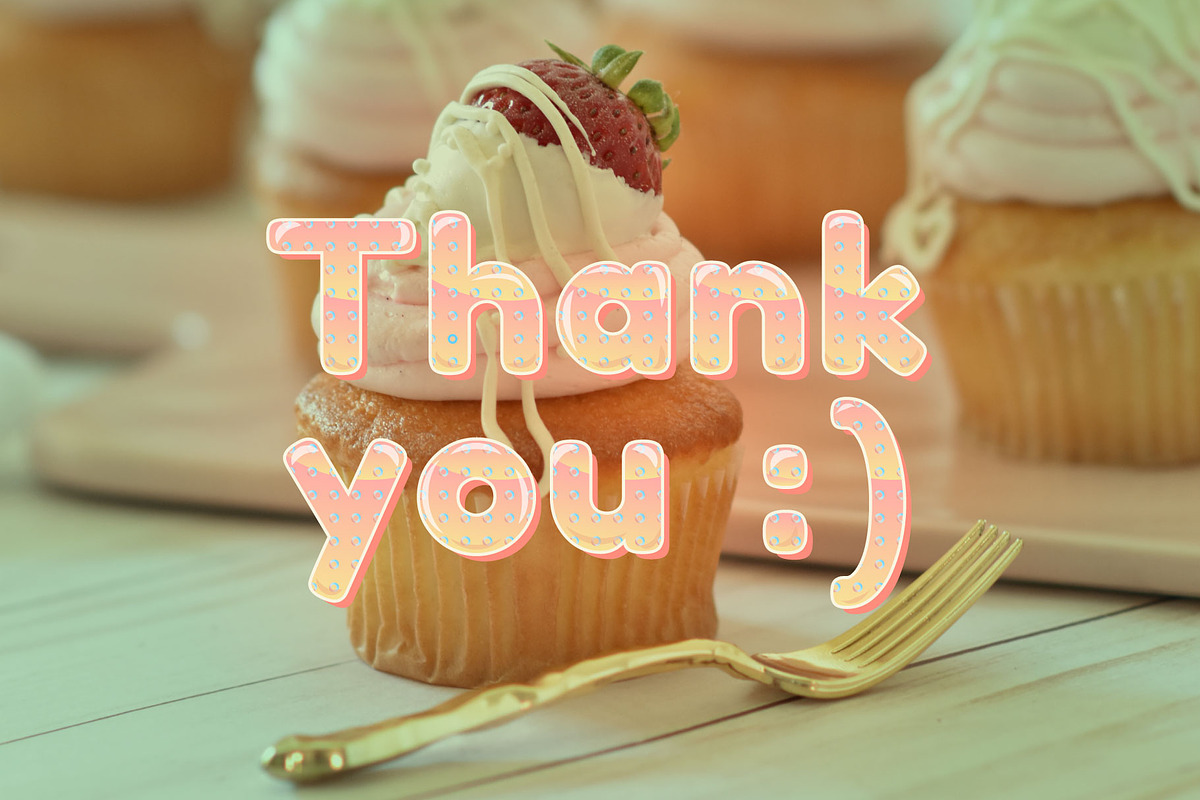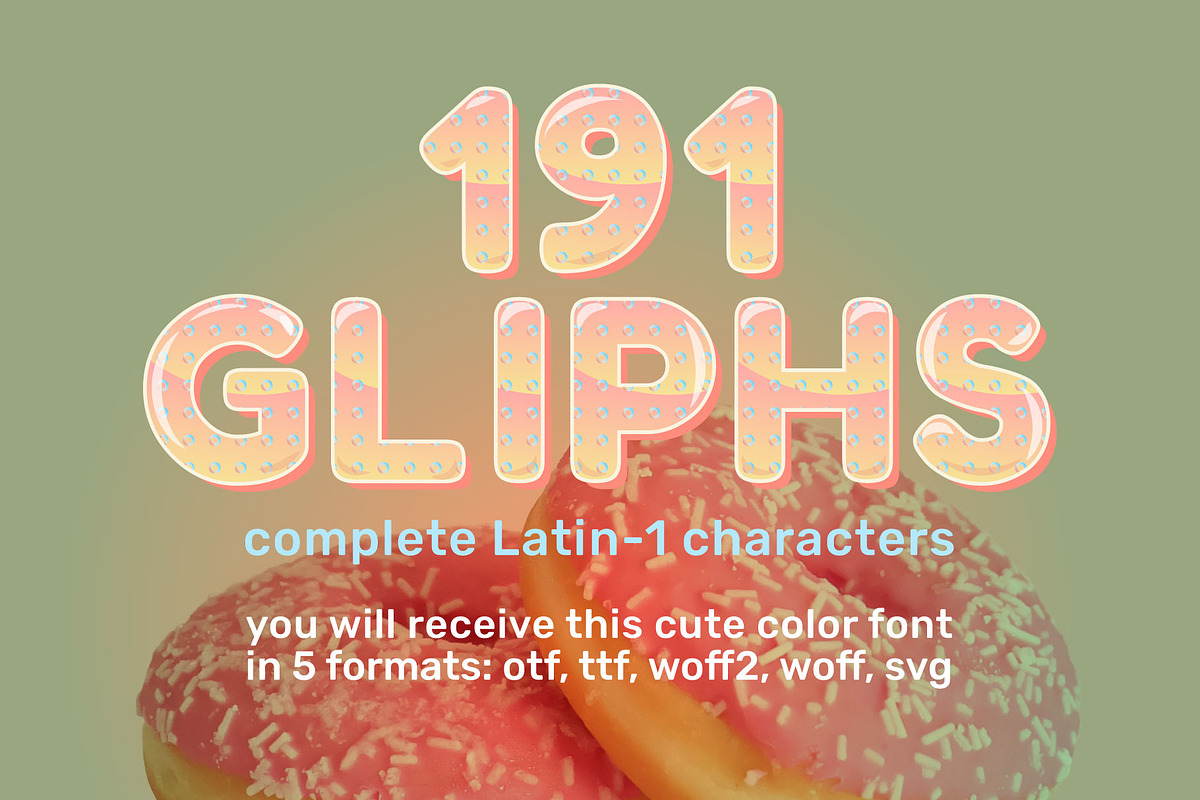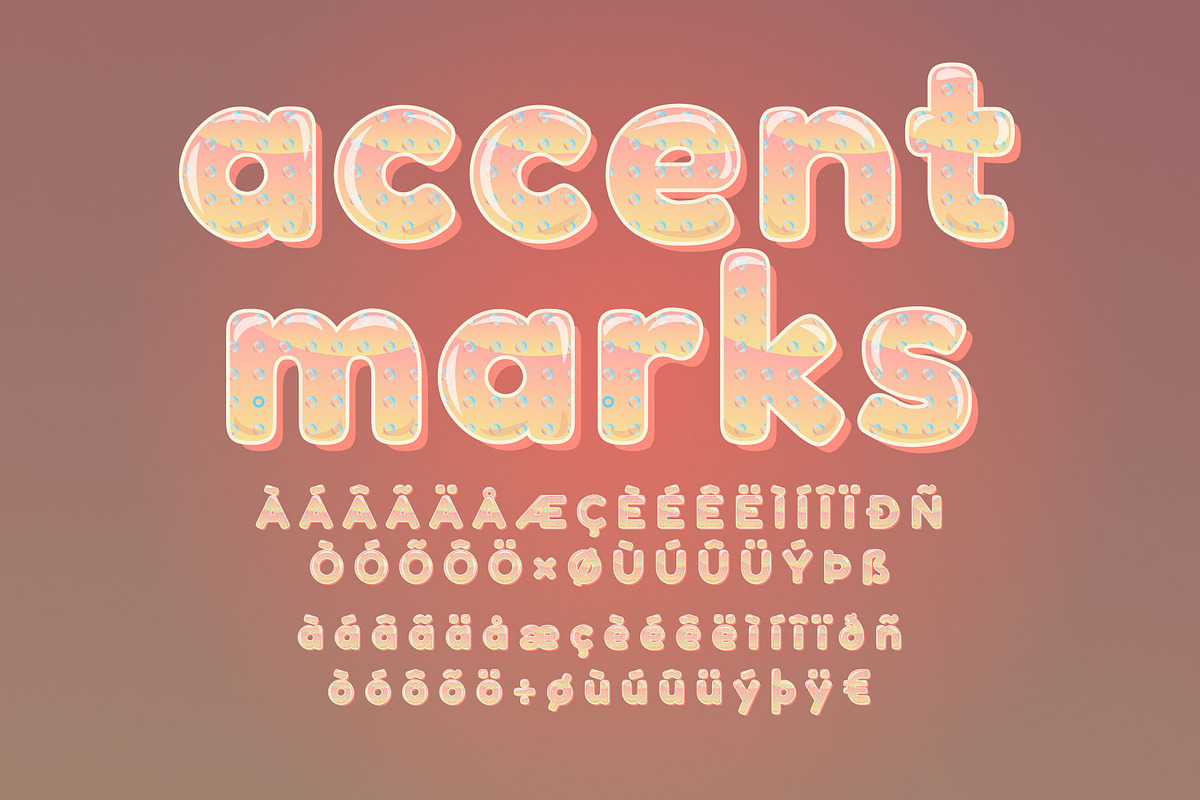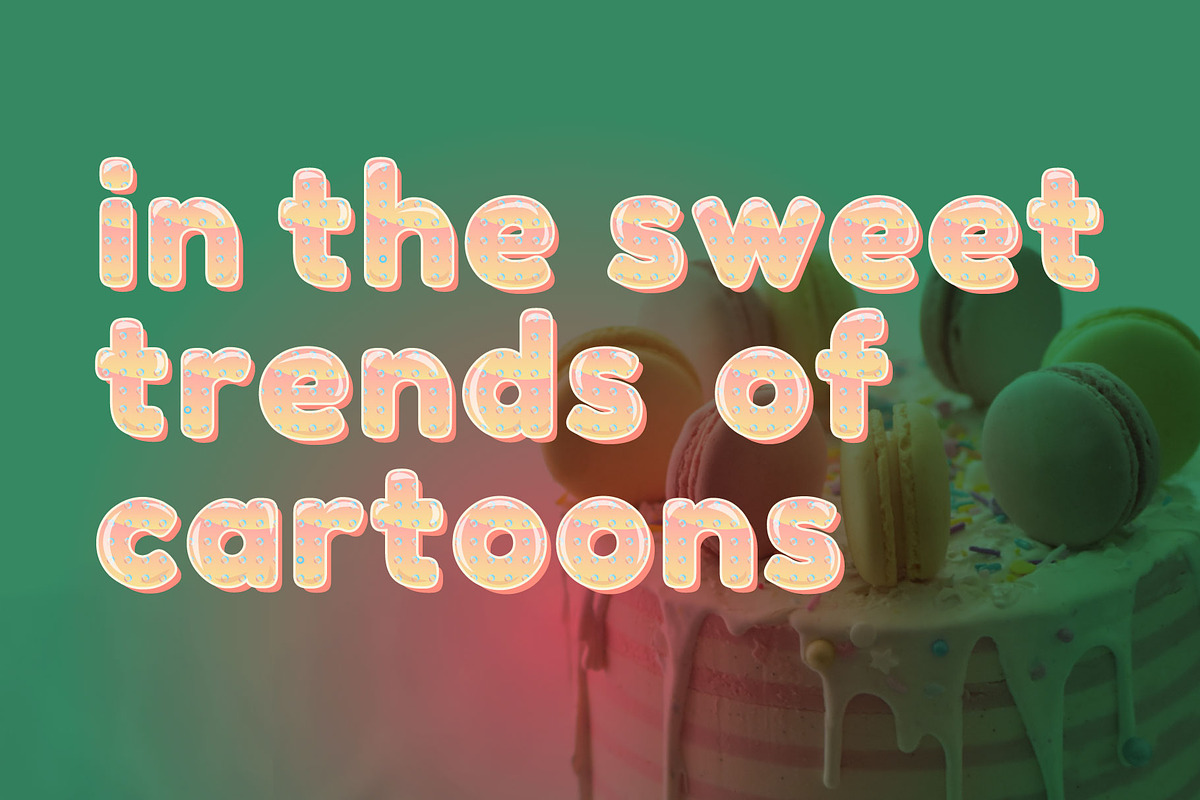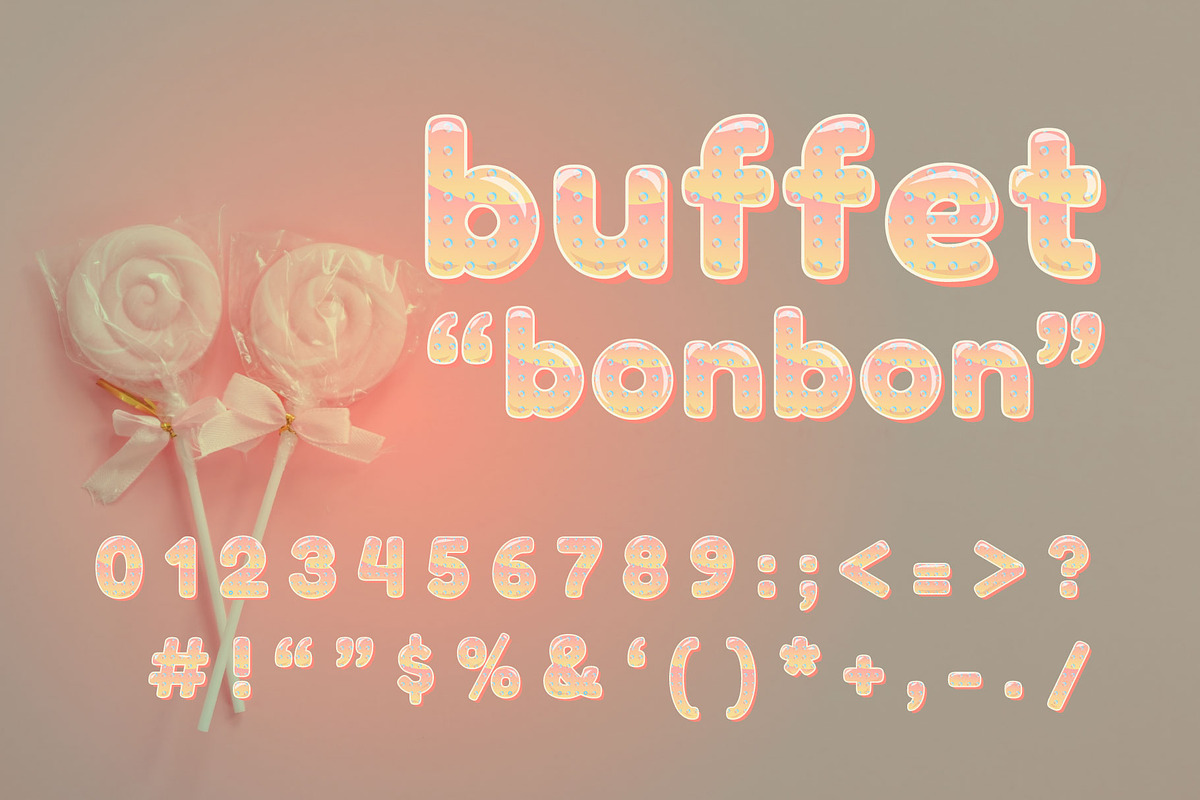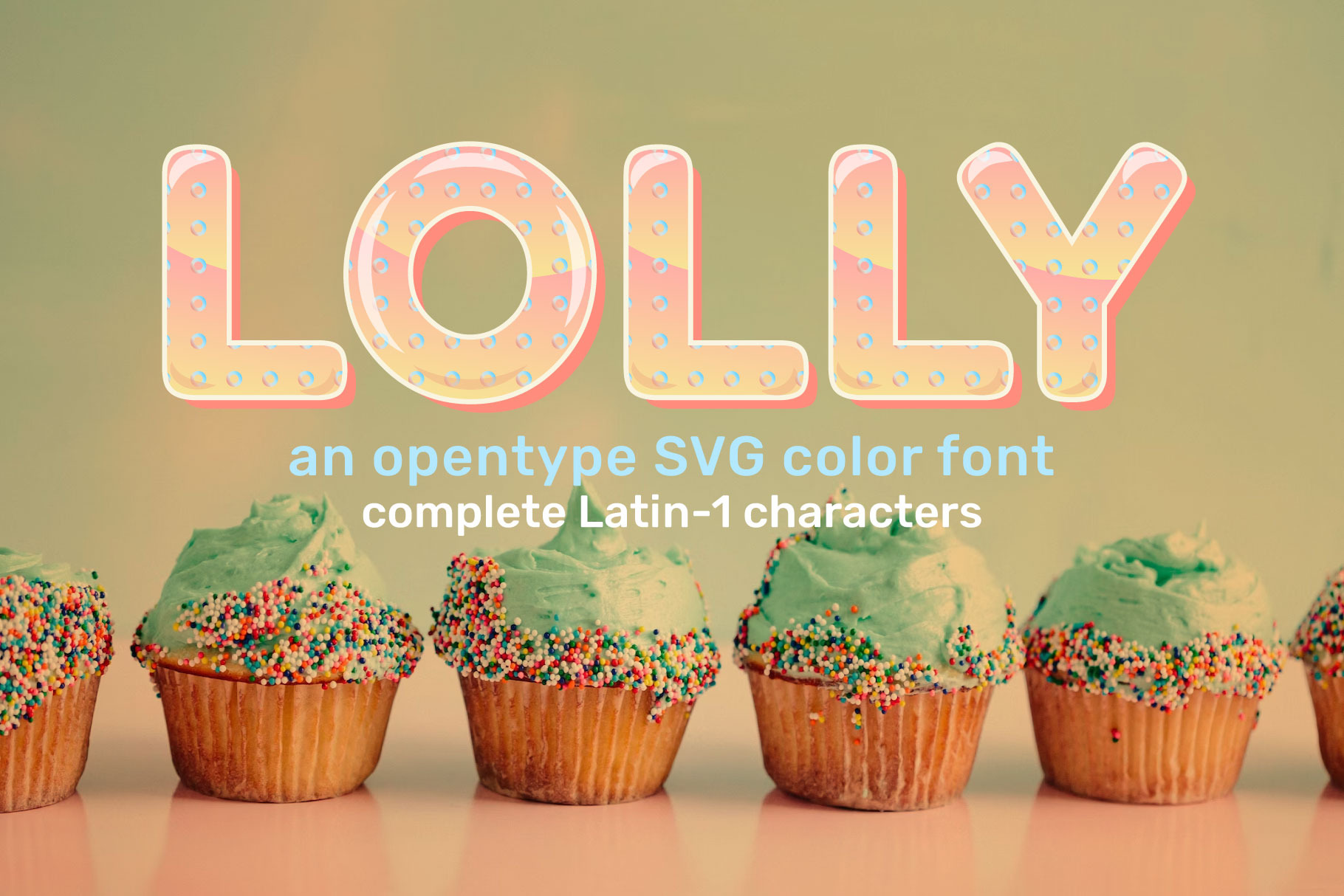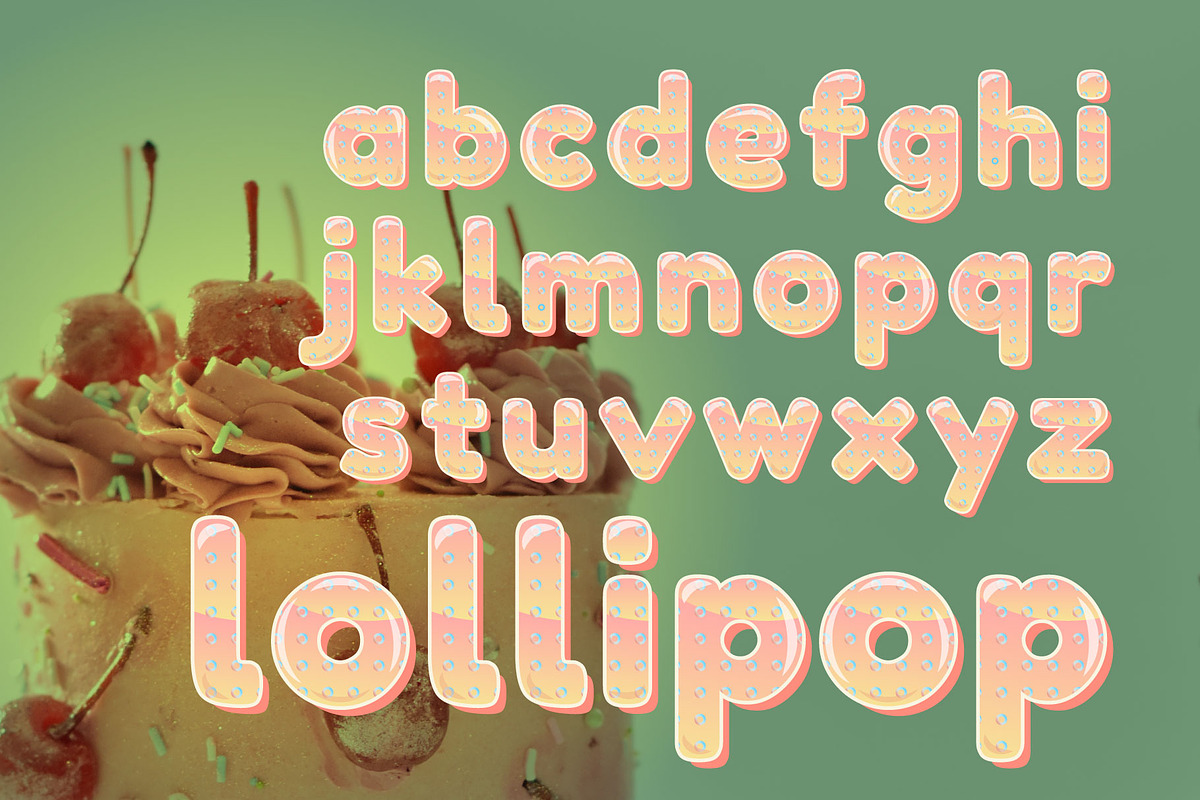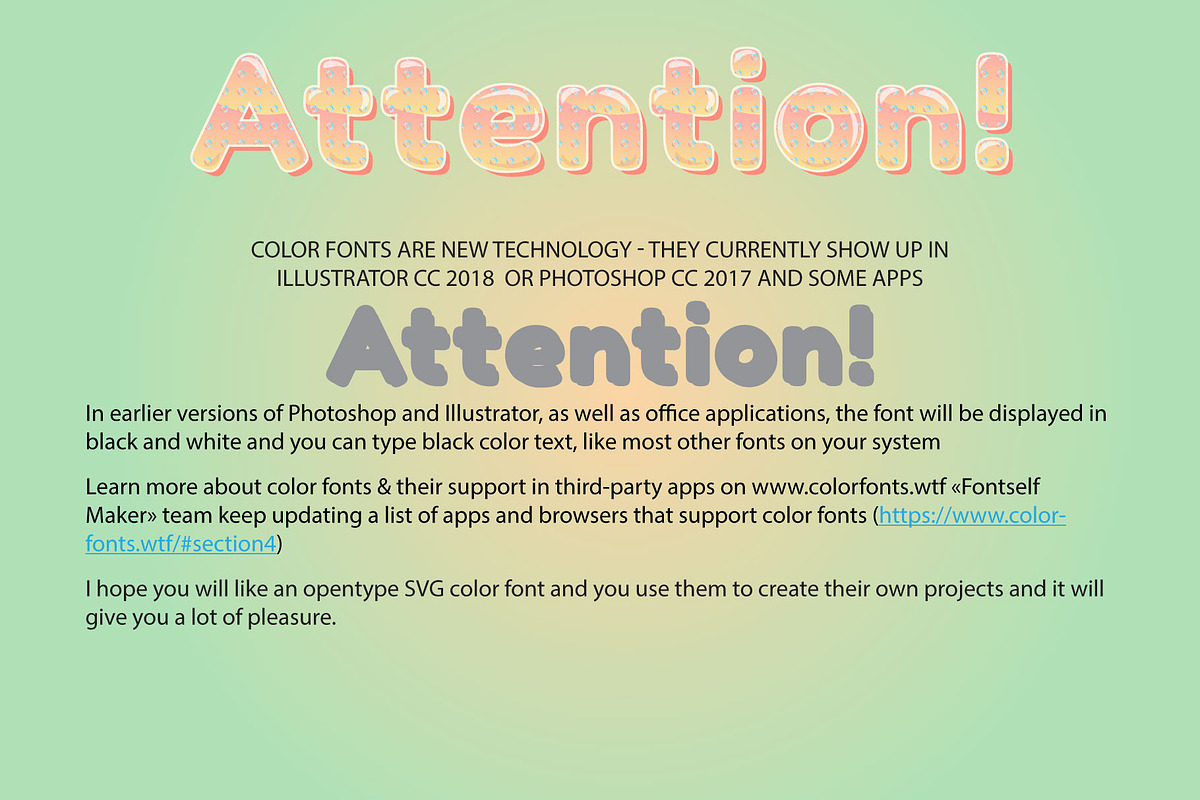
Lolly color cute cartoon font
LOLLY COLOR opentype SVG color font.
Modern display grotesque sans-serif font. Alphabet in cute cartoon style. You can use this font for holiday design,quotes prints on t-shirts, modern typography posters, children posters and lovely cards and… other.
OpenType Font was designed with Fontself Maker in Illustrator CC. Contains CAPITALS & STRINGS letters, NUMERALS & DIGITS, PUNCTUATION, MULTILINGUAL, STANDART AND DISCRETIONARY LIGATURES. WARNING!!! Color fonts are new technology - they currently show up in ILLUSTRATOR CC 2018 OR PHOTOSHOP CC 2017 and some apps. In earlier versions of Photoshop and Illustrator, as well as office applications, the font will be displayed in black and white and you can type black color text, like most other fonts on your system. Learn more about color fonts & their support in third-party apps on www.colorfonts.wtf «Fontself Maker» team keep updating a list of apps and browsers that support color fonts (https://www.colorfonts.wtf/#section4) I hope you will like LOLLY COLOR OTF font and you use them to create their own projects and it will give you a lot of pleasure.